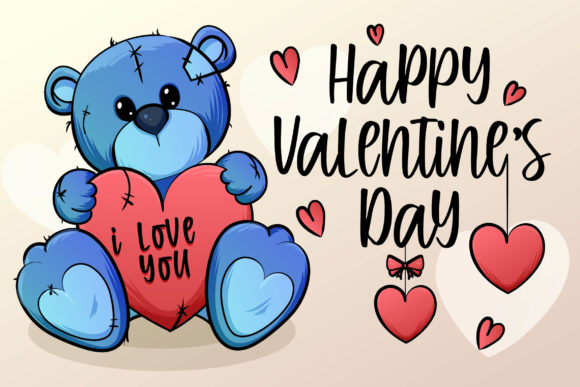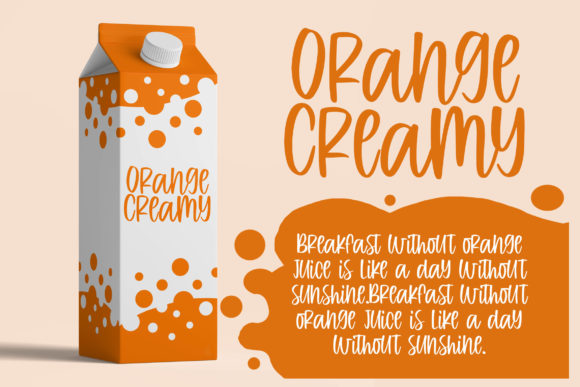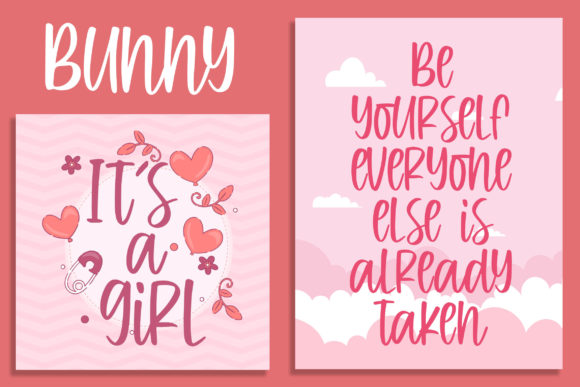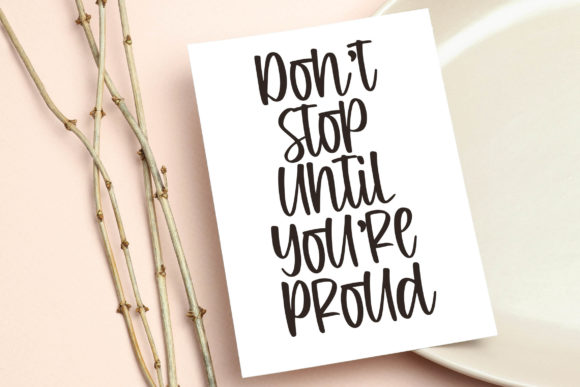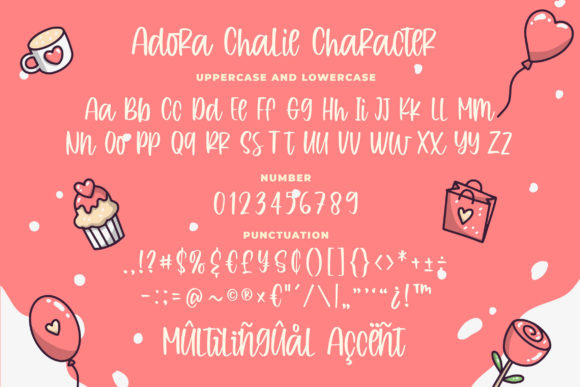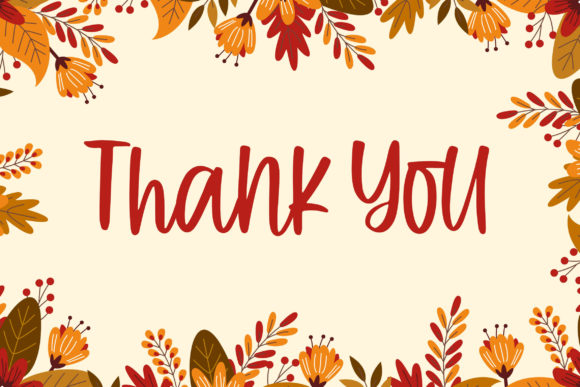
The Designer’s Delight: Adora Chalie Font
Have you ever been in the middle of a design project, and suddenly, you’re stuck on finding the perfect font? I recall a recent experience where I was working on a branding project for a boutique client, and I just couldn’t find a font that captured the essence of their elegant yet modern vibe. That’s when I stumbled upon Adora Chalie, a display font inspired by modern calligraphy.
A Personal Review of Adora Chalie
As a designer, I’m always on the lookout for fonts that can elevate my projects. Here’s my honest review of Adora Chalie:
- ✨ Elegant and Modern: Adora Chalie brings a touch of sophistication to any project with its fluid, calligraphic strokes.
- ✅ Versatility: This font is perfectly suited for a wide variety of projects, from branding and advertising to packaging and digital media.
- 💫 OpenType Features: Adora Chalie comes with a range of OpenType features, including stylistic alternates and glyphs, which give you plenty of creative options.
While Adora Chalie is an excellent font, there are a few things to keep in mind:
- ⚠️ Legibility at Small Sizes: Like many script fonts, Adora Chalie can become a bit tricky to read at smaller sizes. It’s best used for headlines or titles.
- 🤔 Pairing with Other Fonts: Adora Chalie’s unique style means it can be a bit challenging to pair with other fonts. You’ll want to choose complementary fonts that don’t compete with its elegance.
While the exact origins of Adora Chalie might be shrouded in mystery, it’s clear that the designer was inspired by the fluidity and expressiveness of modern calligraphy. The result is a font that feels both contemporary and timeless.
| Font Name | Adora Chalie Font |
| Author | Blankids Studio |
Q: What type of projects is Adora Chalie best suited for?
A: Adora Chalie is versatile and can be used for a wide range of projects, including branding, advertising, packaging, and digital media.
Q: Is Adora Chalie difficult to read at small sizes?
A: Like many script fonts, Adora Chalie can be challenging to read at smaller sizes. It’s best used for headlines or titles.
Q: Does Adora Chalie support OpenType features?
A: Yes, Adora Chalie comes with a range of OpenType features, including stylistic alternates and glyphs, allowing for greater creative flexibility.